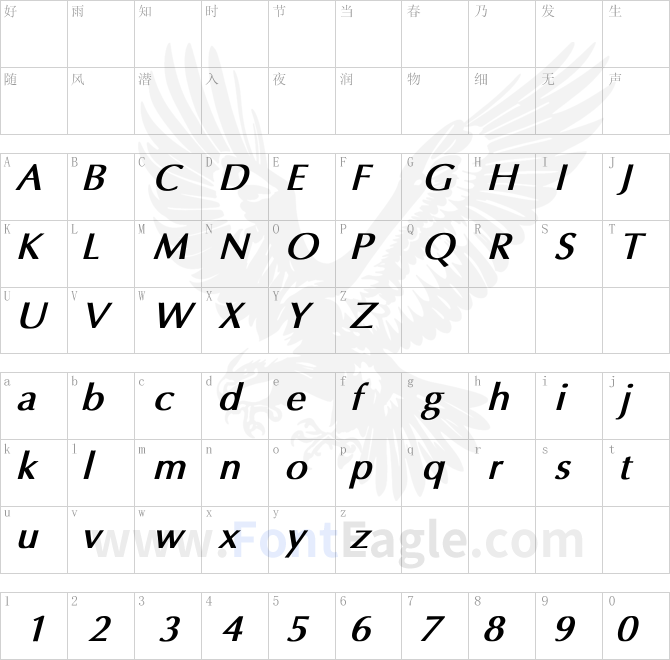
Optima-Bold-Italic is a great font, widely used in graphic design, single-page menu design, poster design and other fields, and is deeply loved by designers.Optima-Bold-Italic download.